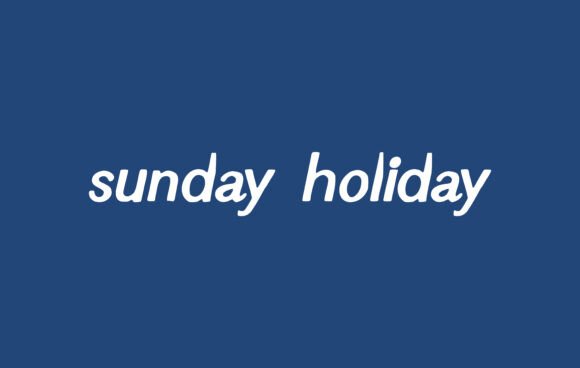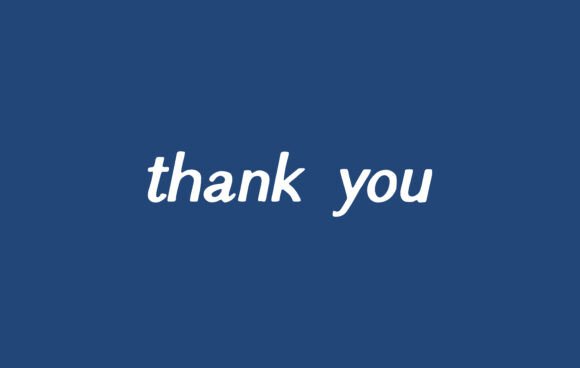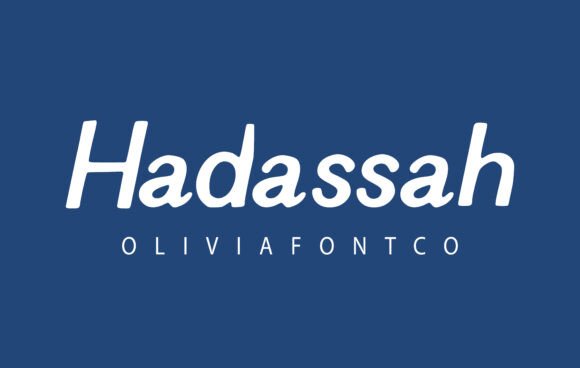
Introducing Hadassah Font: The Ultimate Choice for Creative Expression
Are you a designer, craftsperson, or creative enthusiast looking for a font that can elevate your projects to new heights? Look no further than the stunning Hadassah Font. This authentic handwritten font is designed to add a romantic touch to your designs, making it perfect for a wide range of creative applications.
The Unique Charm of Hadassah Font
Hadassah Font is an expertly crafted font that boasts a unique charm, making it a true favorite among designers and crafters. Its authentic handwritten style gives it a personal and intimate feel, perfect for creating designs that resonate with your audience. Whether you’re looking to create eye-catching magazine headlines, engaging social media graphics, or beautiful wedding invitations, Hadassah Font is the perfect choice.
Key Features of Hadassah Font
• Legibility: One of the standout features of Hadassah Font is its exceptional legibility. Whether you’re using it as a title or body text, this font is easy to read and understand, making it perfect for designs where clarity is key.
• Romantic Touch: Hadassah Font has a romantic and elegant feel to it, making it perfect for designs that require a touch of sophistication. From wedding invitations to branding and packaging, this font adds a level of refinement that’s hard to match.
• Versatility: Hadassah Font is incredibly versatile, making it suitable for a wide range of design applications. Whether you’re creating social media graphics, magazine headlines, or business cards, this font can be used to create stunning designs that capture your audience’s attention.
Design Applications for Hadassah Font
So, what can you create with Hadassah Font? The possibilities are endless! Here are some design applications where this font truly shines:
• Magazine Headlines: Create eye-catching headlines that grab your readers’ attention with Hadassah Font. Its bold and elegant style makes it perfect for magazine covers, article titles, and section headings.
• Social Media Graphics: Elevate your social media presence with stunning graphics created using Hadassah Font. From Facebook posts to Instagram stories, this font can help you create engaging and shareable content.
• Wedding Invitations: Add a touch of romance and elegance to your wedding invitations with Hadassah Font. Its beautiful handwritten style makes it perfect for creating bespoke wedding stationery that’s both personal and memorable.
• Branding and Packaging: Establish your brand identity with Hadassah Font. This font can be used to create stunning logos, business cards, and packaging designs that reflect your brand’s personality and values.
Why Choose Hadassah Font?
With so many fonts available, why choose Hadassah Font? Here are just a few reasons why this font stands out from the rest:
• Unique Style: Hadassah Font has a unique and authentic handwritten style that’s hard to find in other fonts. Its romantic touch and elegant feel make it perfect for designs that require a level of sophistication.
• Exceptional Legibility: Unlike some fonts that can be difficult to read, Hadassah Font is exceptionally legible, making it perfect for designs where clarity is key.
• Versatility: Hadassah Font is incredibly versatile, making it suitable for a wide range of design applications.
In conclusion, Hadassah Font is an exceptional handwritten font that can elevate your designs to new heights. Its unique charm, romantic touch, and exceptional legibility make it perfect for a wide range of creative applications. Whether you’re a designer, craftsperson, or creative enthusiast, Hadassah Font is a must-have font that can help you bring your creative ideas to life.